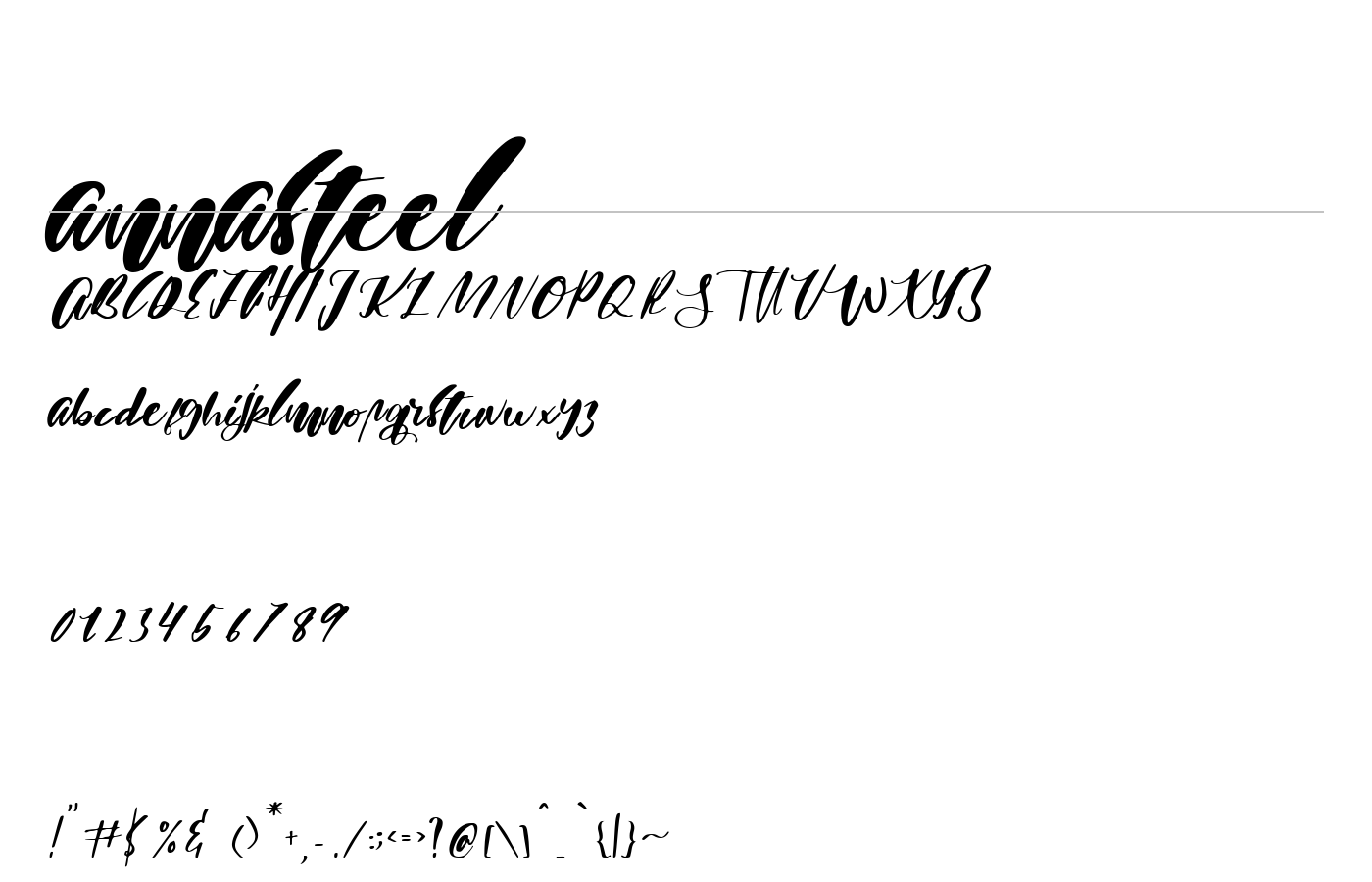
Annasteel is a stylish, script font with elegant, fluid strokes that give it a sophisticated yet approachable feel. Its flowing letterforms and varying line thickness make it perfect for fashion branding, invitations, or any design needing a personal, luxurious touch. This font works beautifully in logos and headlines where a refined, handwritten aesthetic is desired.
annasteel Font